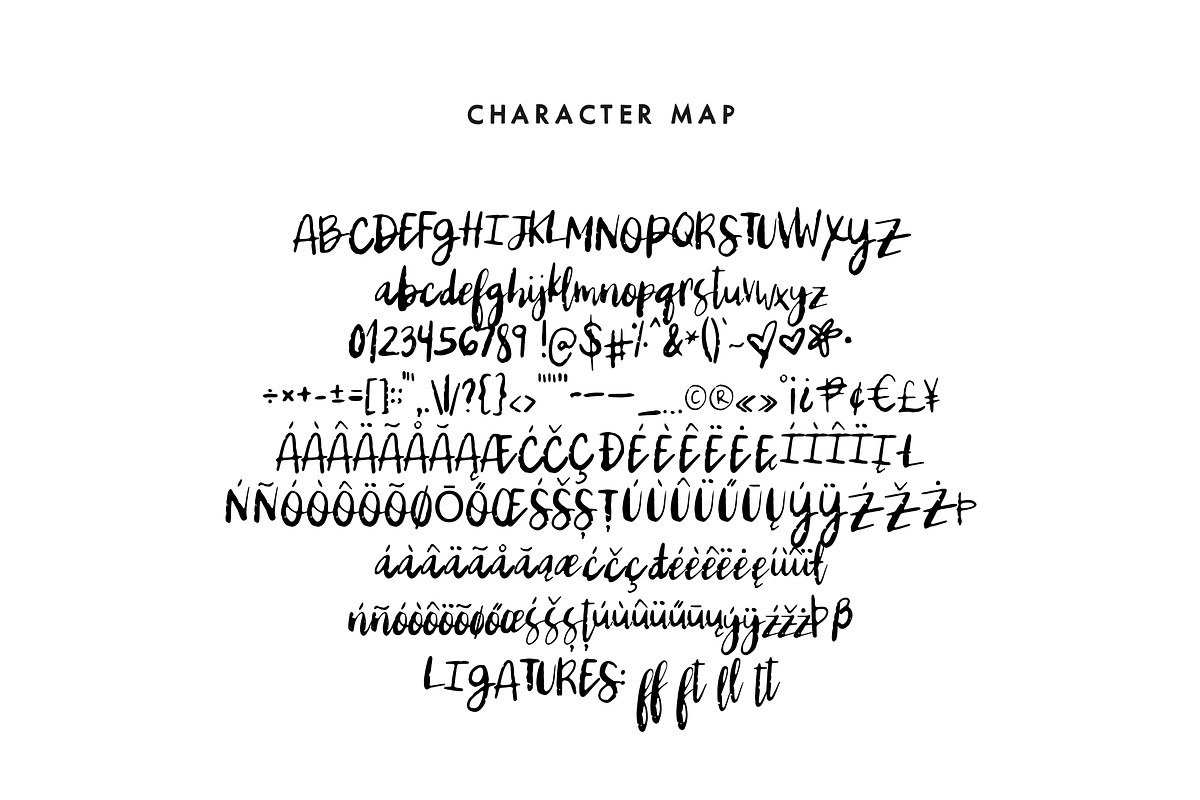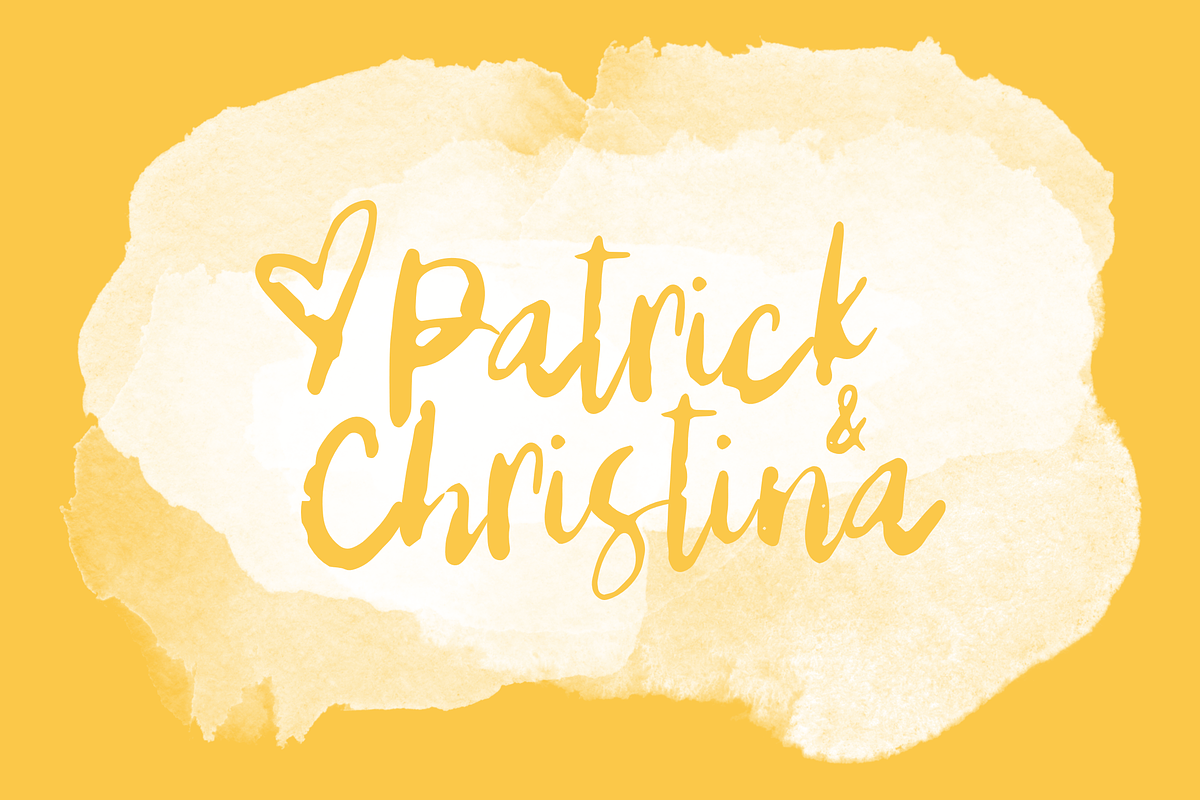
Underground — An Acid-Doused Script
Underground — An Acid-Doused Script by Mix Fonts is a font selected for branding, posters, packaging, typography.
Why Underground — An Acid-Doused Script is worth a look
Underground — An Acid-Doused Script by Mix Fonts fits naturally into Branding, posters, packaging, typography.